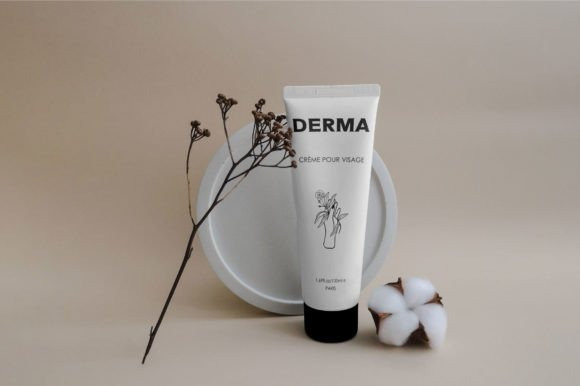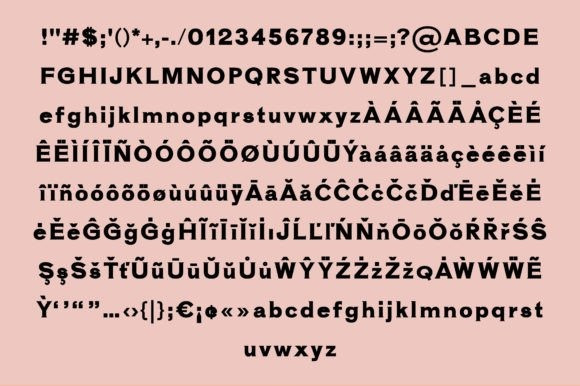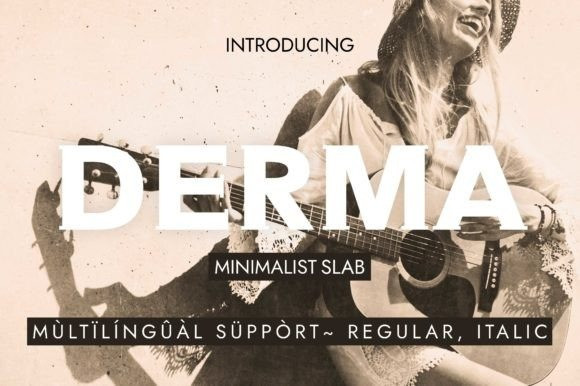
Derma Font
Derma Font is a bold, yet elegant slab serif font. With its minimalist style, this typeface is suitable for a wide range of creative ideas.